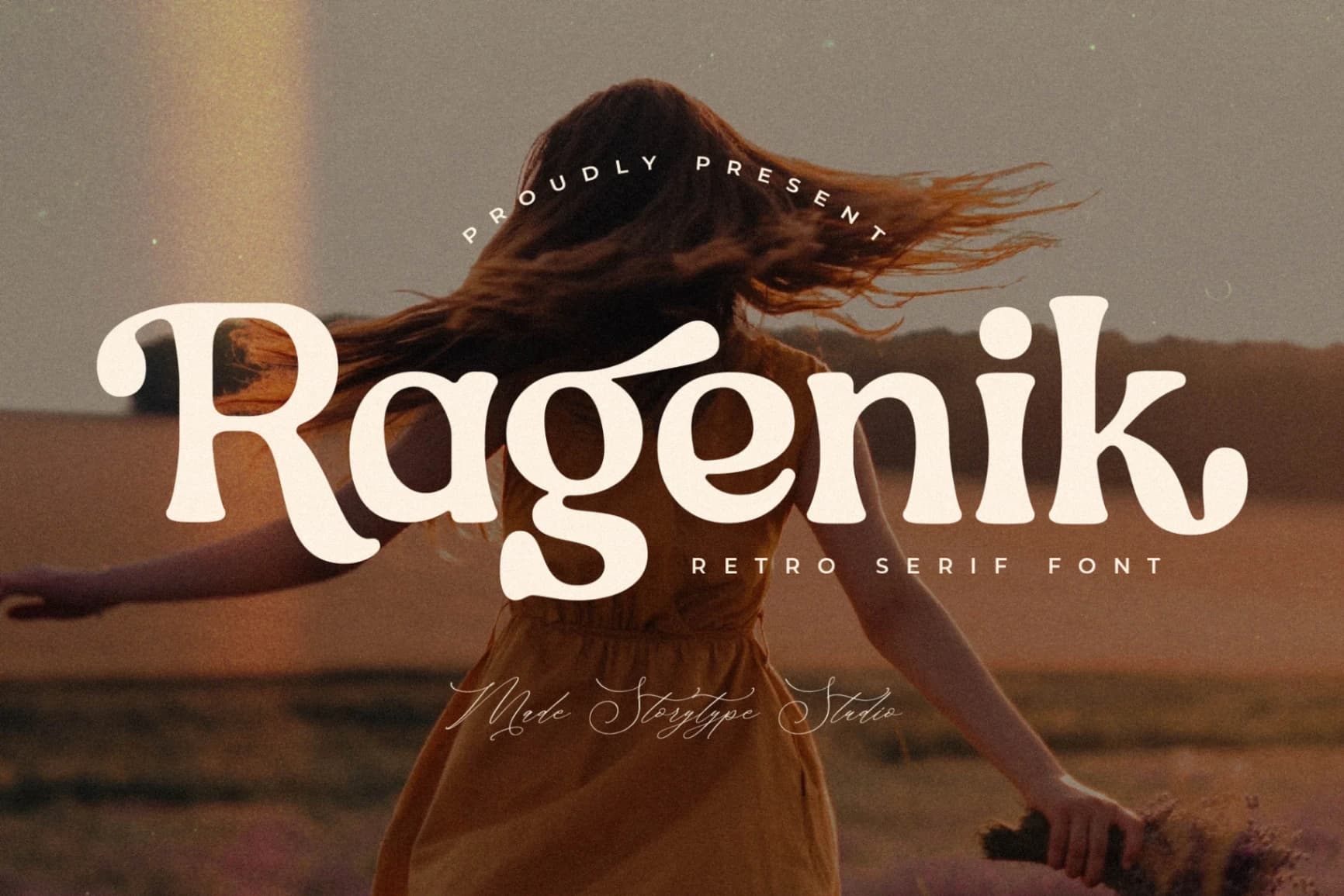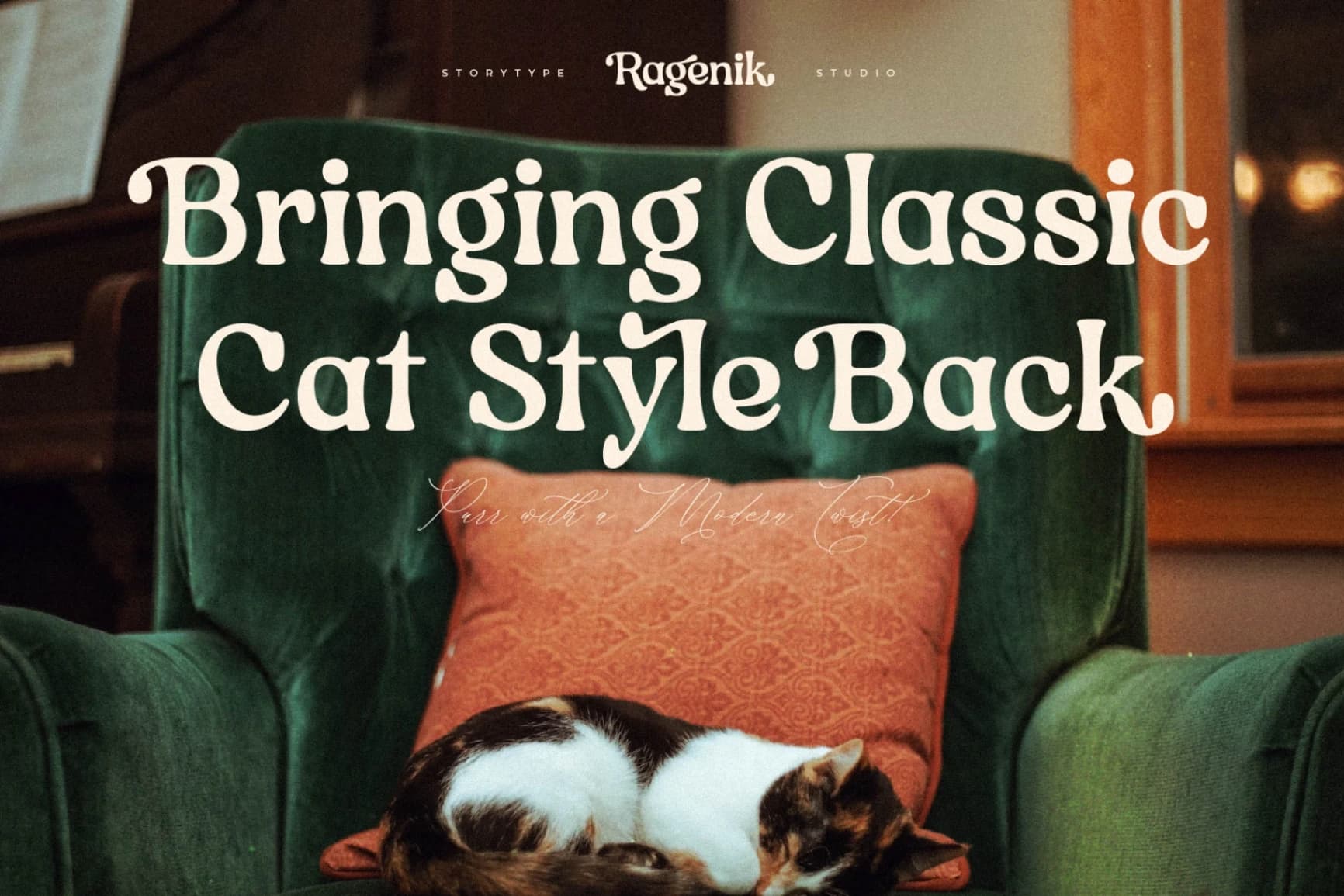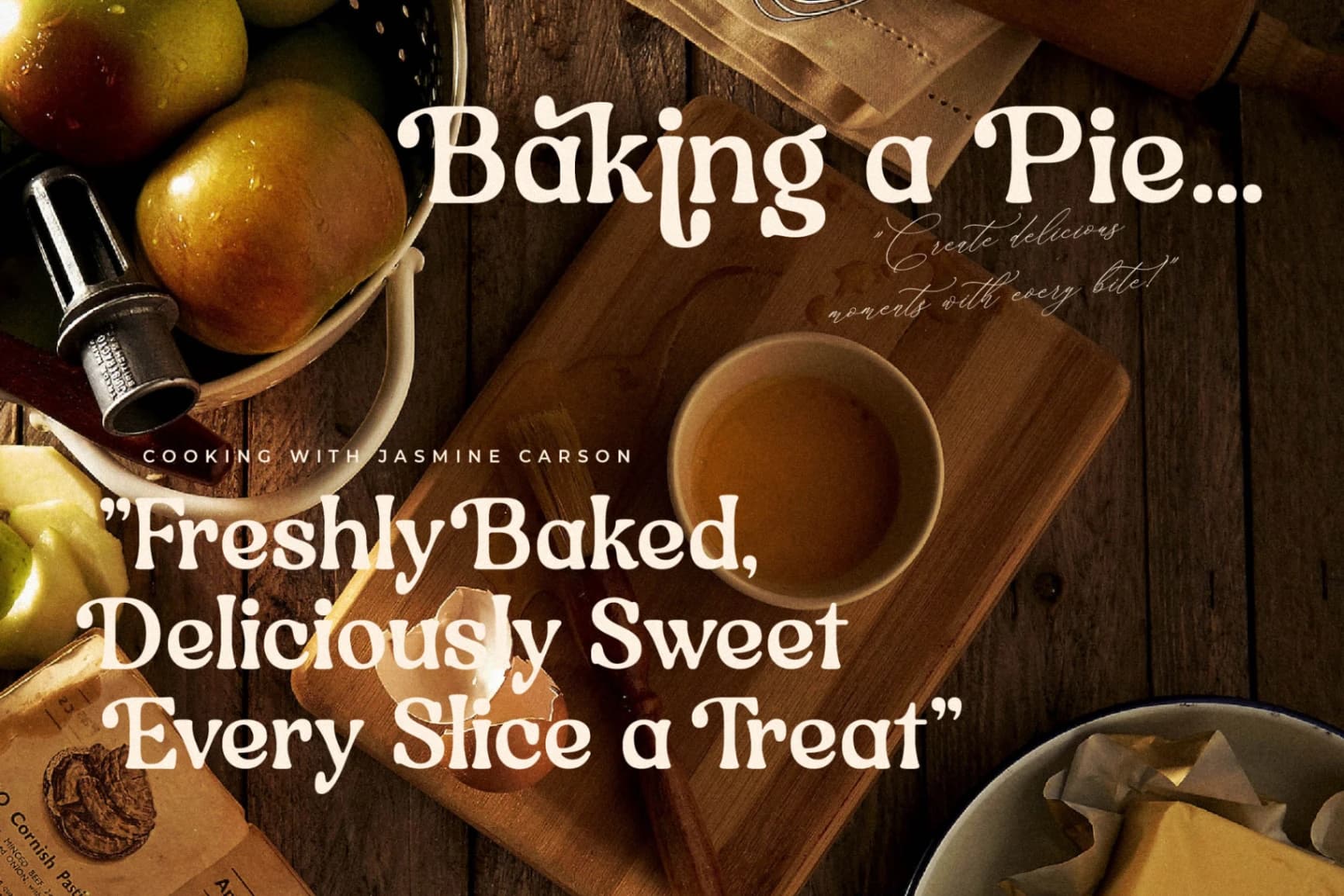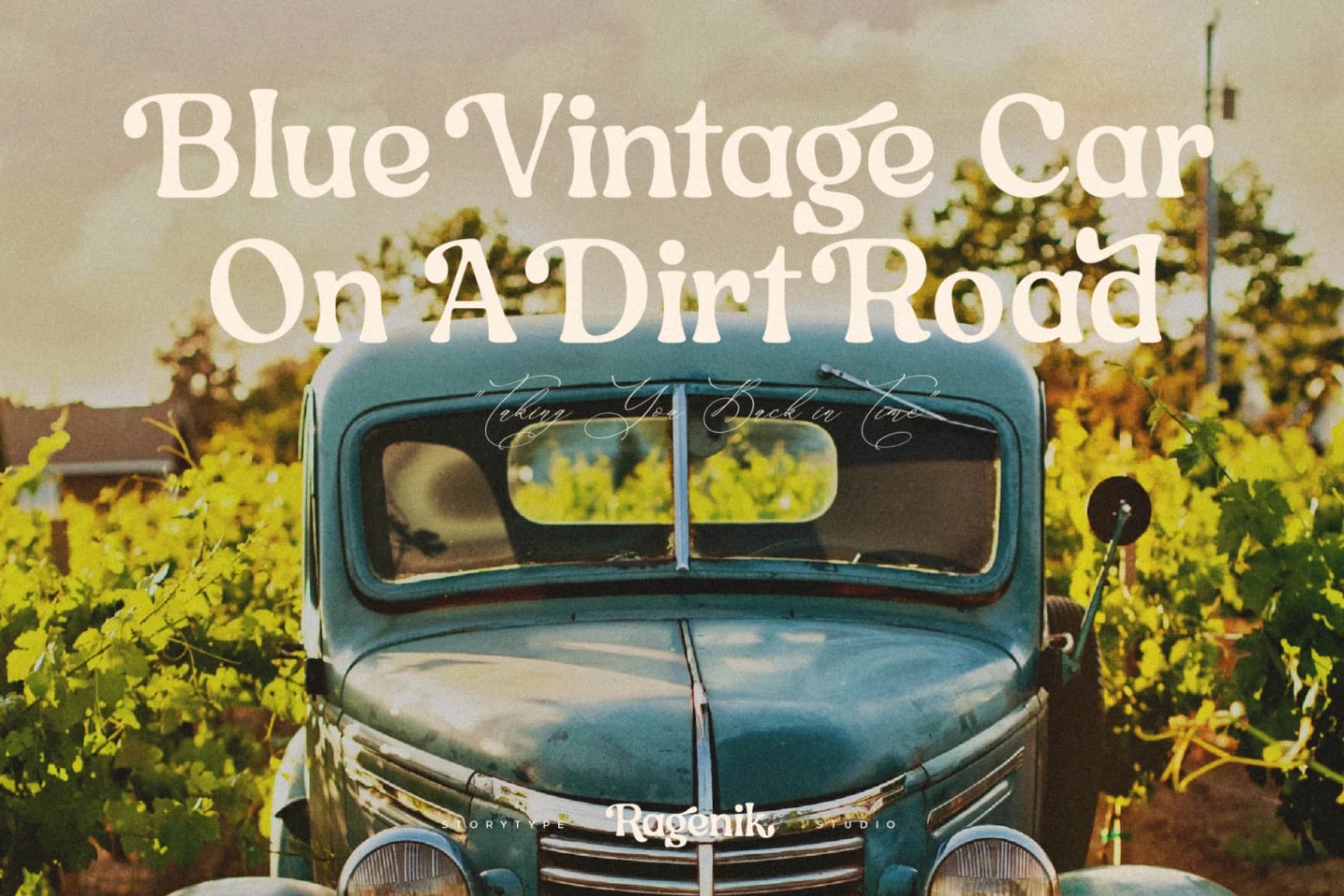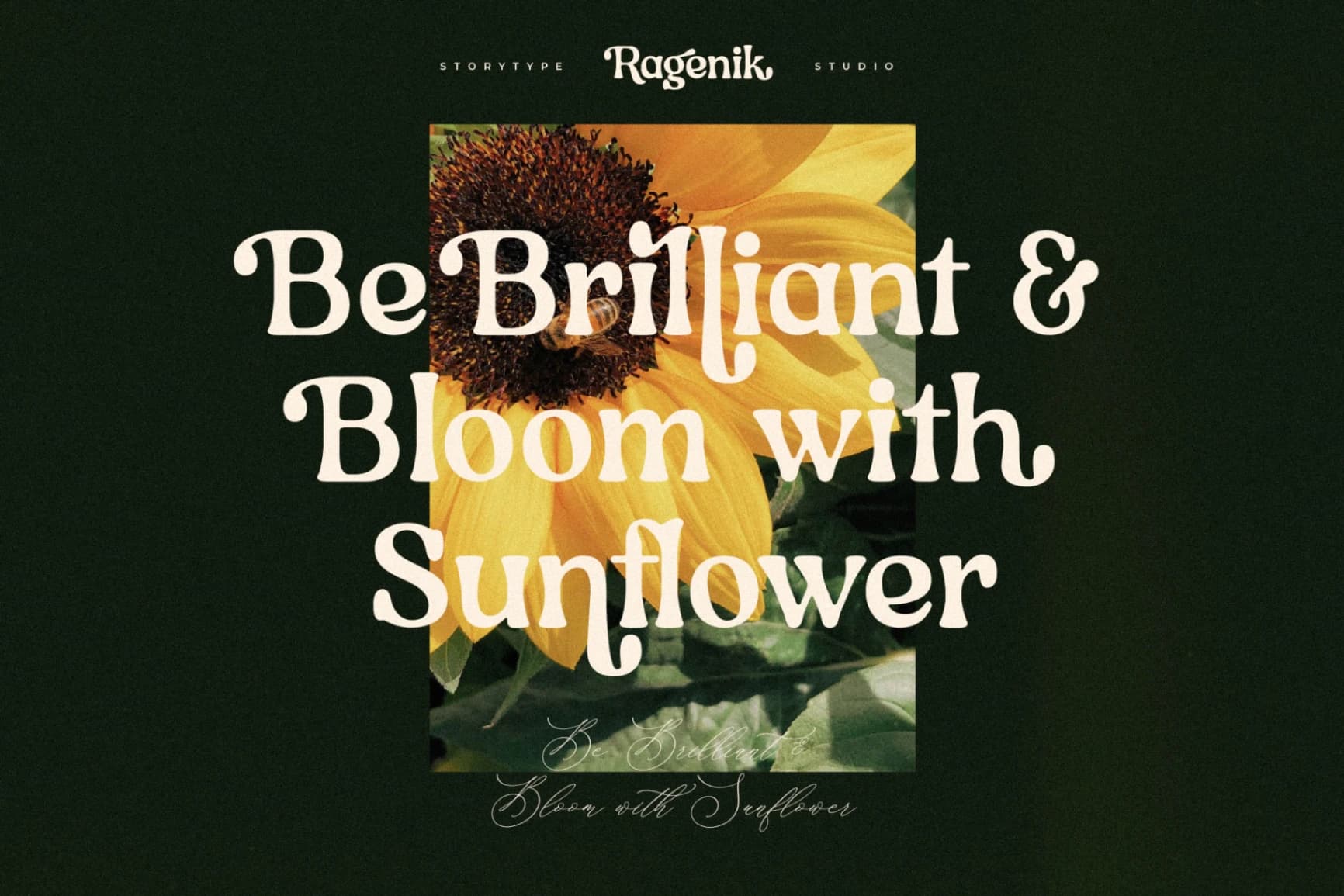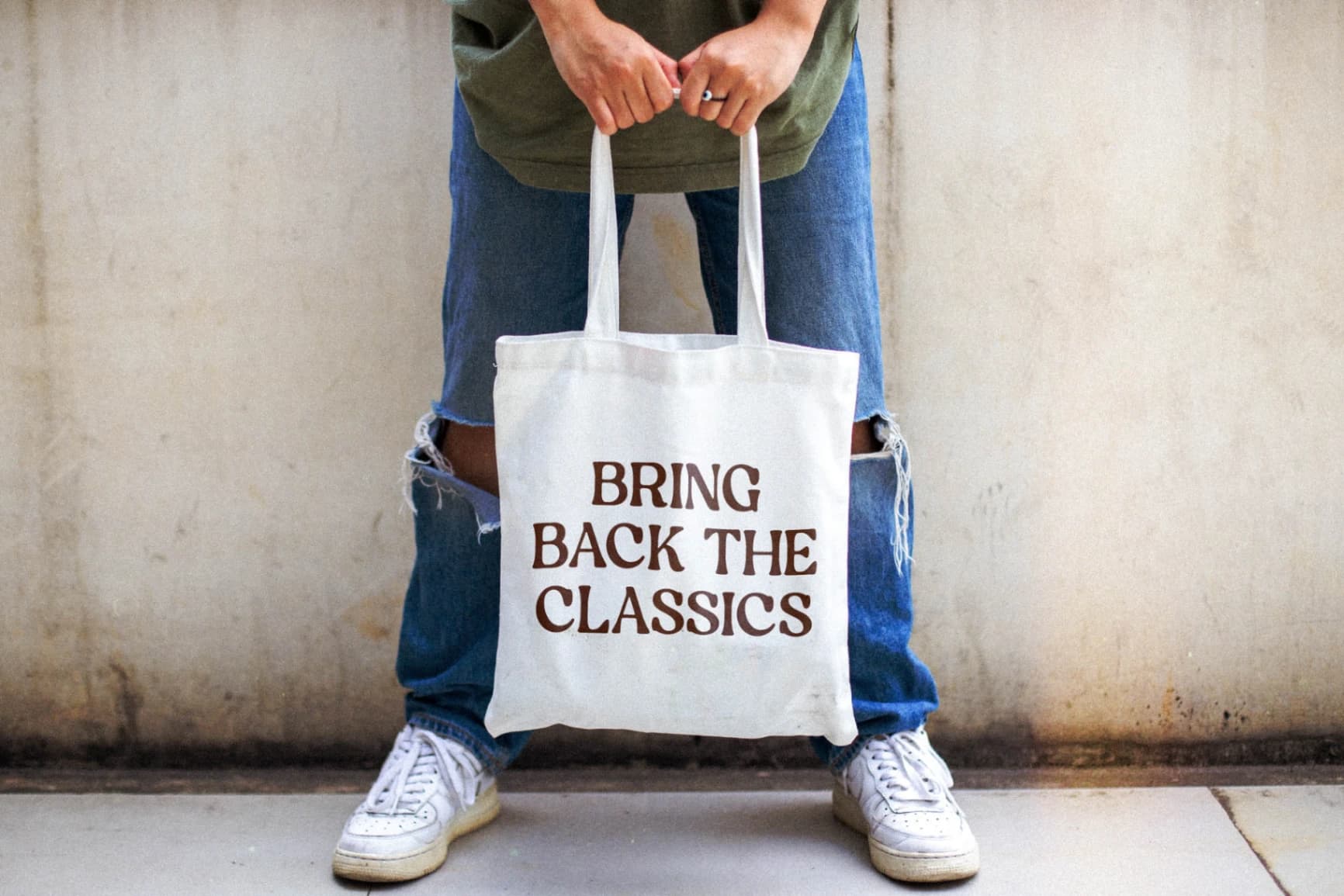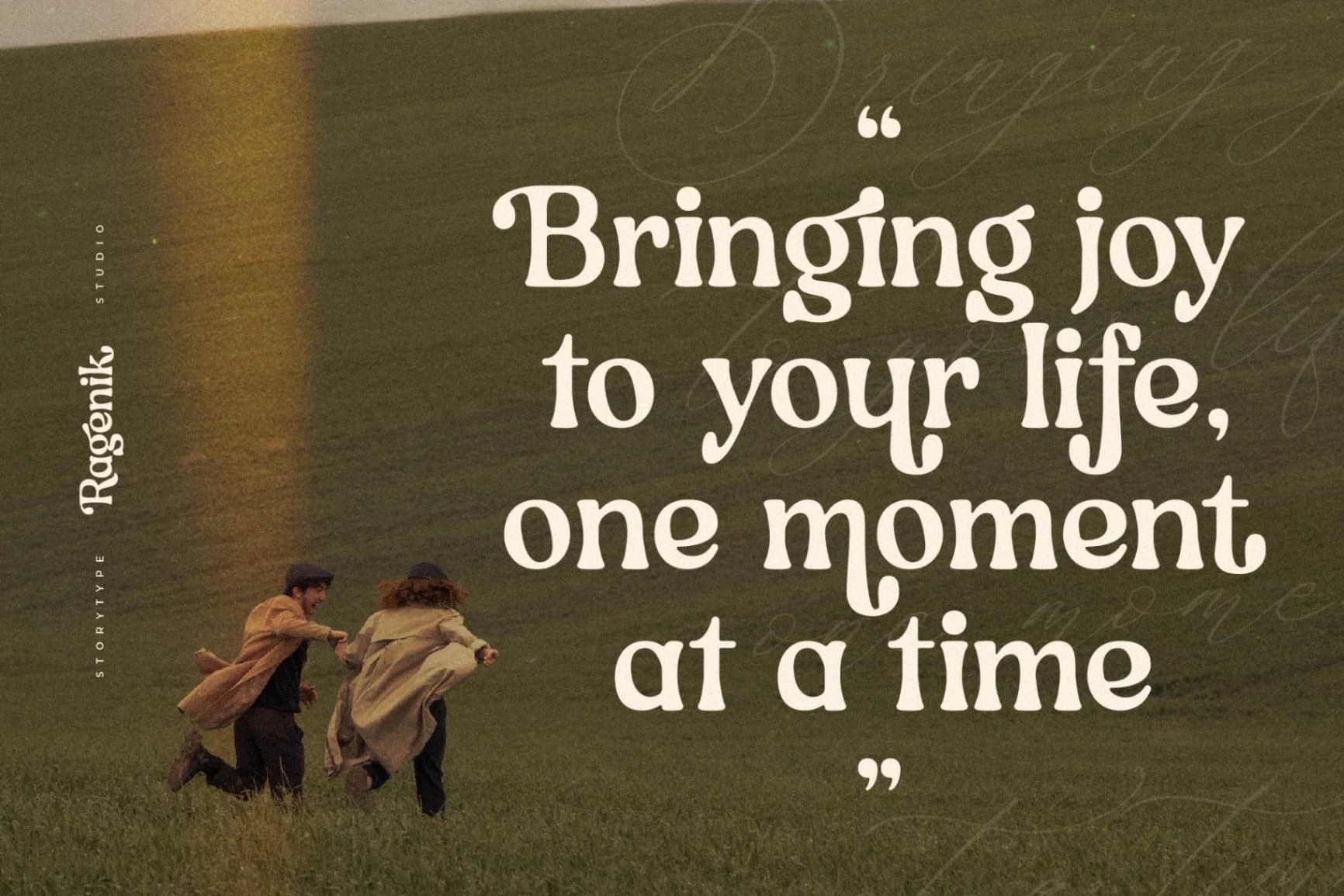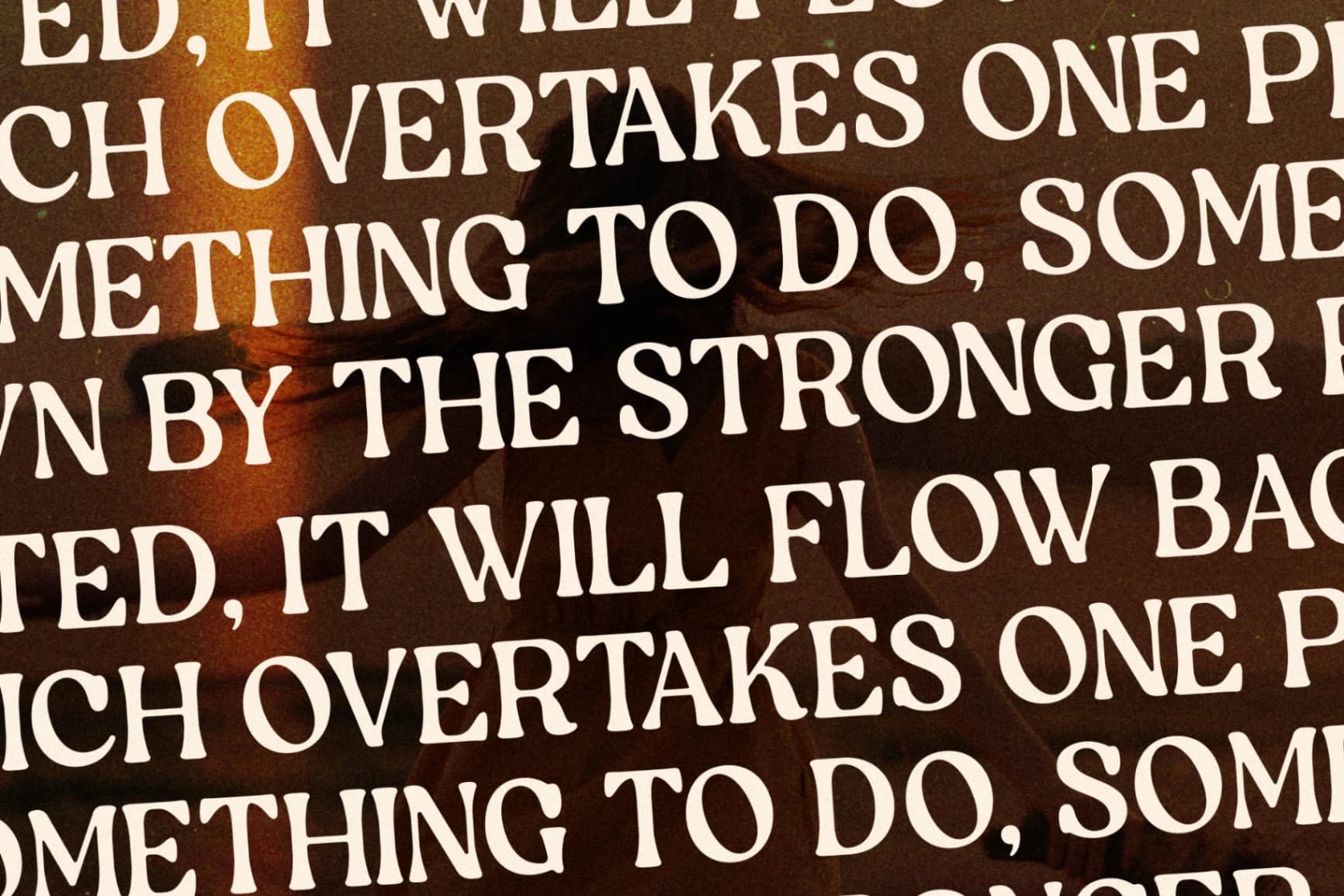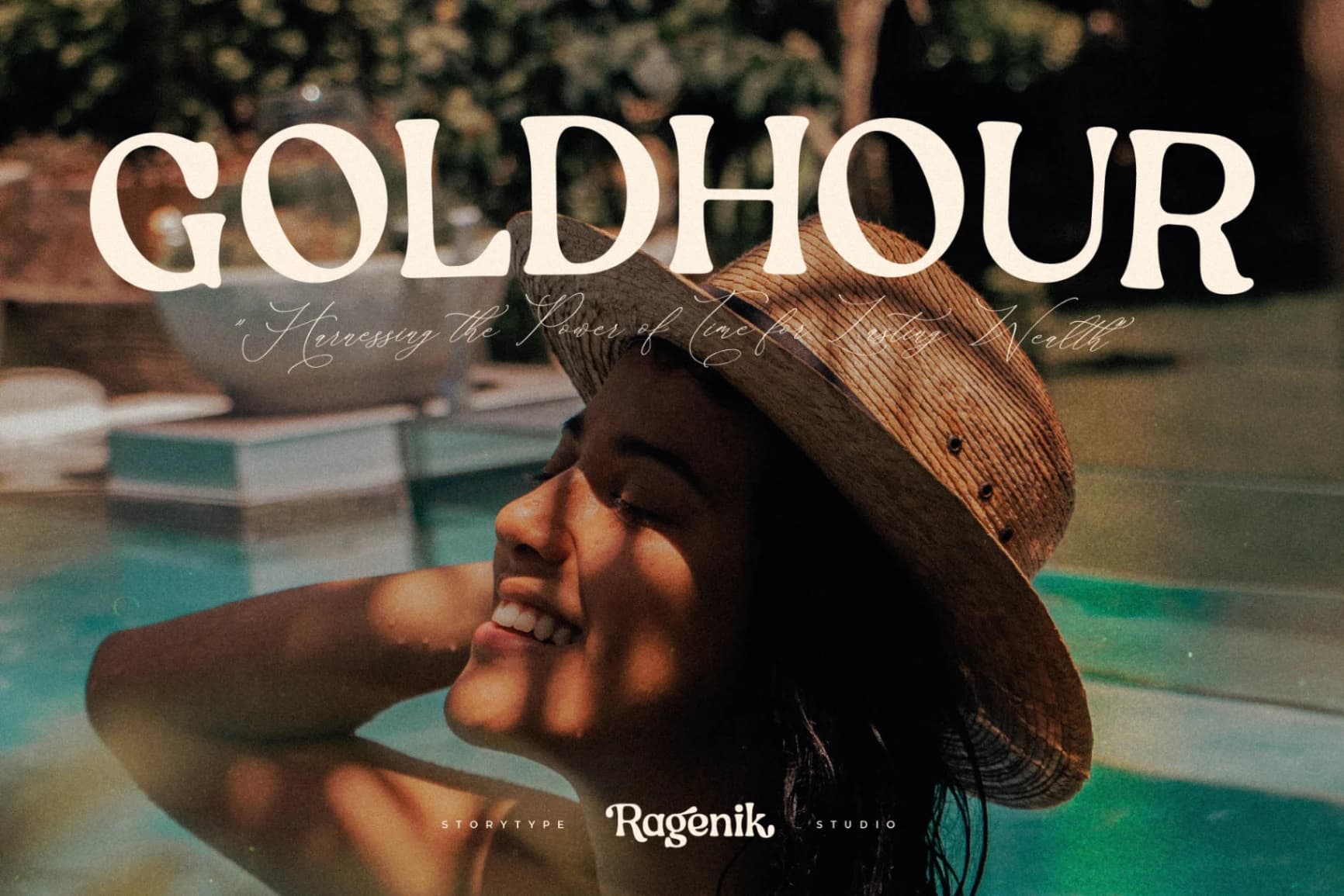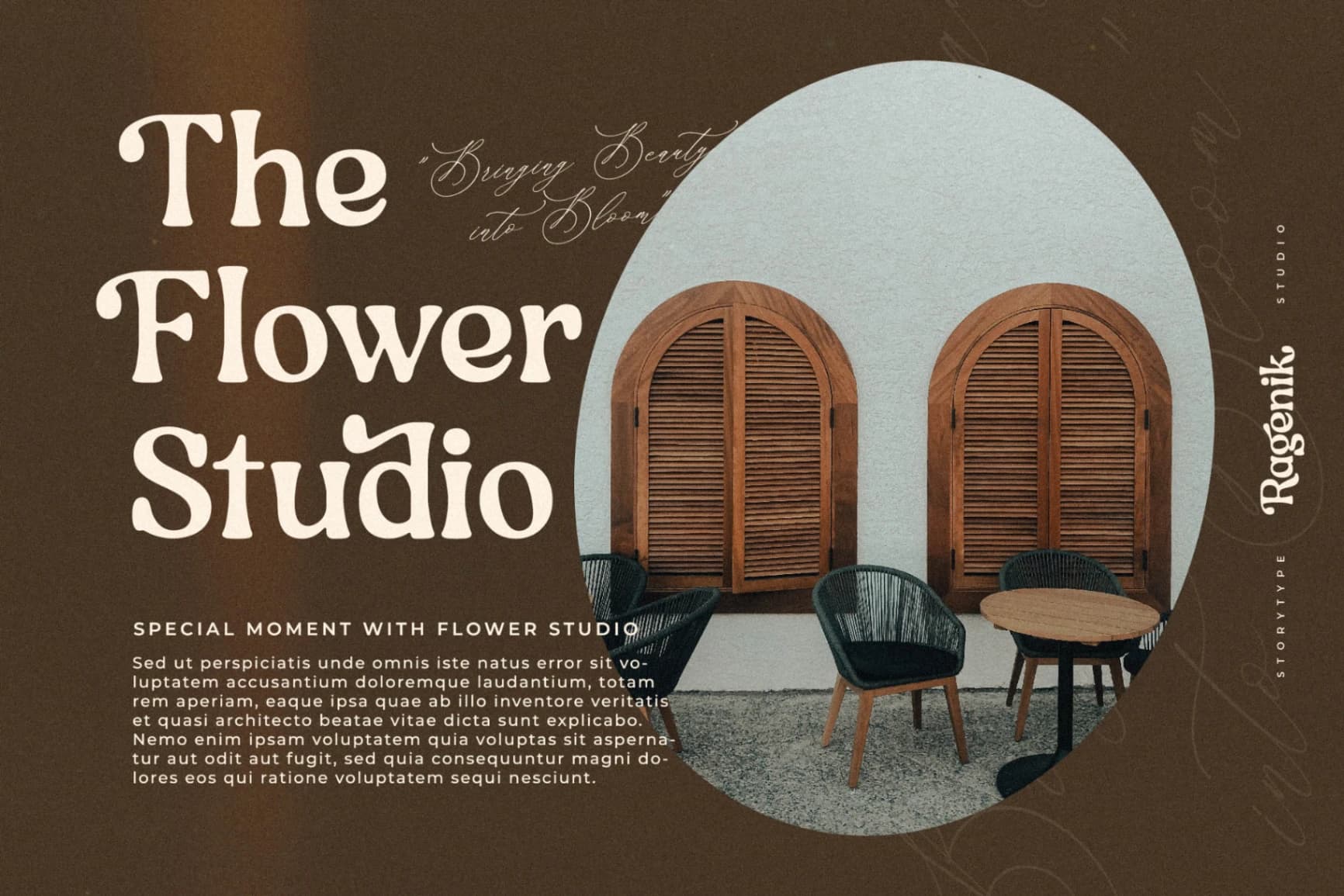
Ragenik - Retro Serif Font
Ragenik - Retro Serif Font is the definitive choice for injecting instant nostalgia and high-impact style into your designs. This stunning display typeface marries the generous curves of mid-century typography with a modern, high-contrast finish. Its robust weight and distinctive, softly rounded serifs create an unmistakable visual rhythm, guaranteeing that your headlines will command immediate attention while retaining a sophisticated, artistic flair perfect for vintage-inspired branding.
Unlock unparalleled global design potential with this meticulously crafted typeface. The professional construction of Ragenik - Retro Serif Font ensures excellent legibility at display sizes, making it a reliable tool for large-format media. With its extensive multilingual support, Ragenik - Retro Serif Font adapts seamlessly across global markets, making it incredibly versatile for international projects and ensuring your message resonates worldwide with maximum impact.
Elevate your brand presence from conventional to captivating. Ragenik - Retro Serif Font is perfect for projects requiring a touch of luxurious nostalgia, including editorial magazine covers, high-end product packaging, and fashion branding. Its unique persona ensures your identity avoids generic anonymity, establishing an immediate sense of quality, craftsmanship, and timeless sophistication in demanding commercial environments.